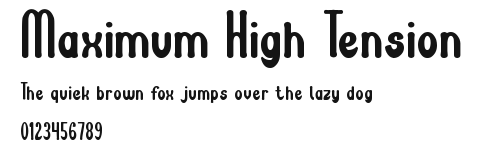
Maximum High Tension Preview
• Font Name: Maximum High Tension
• Full Font Name: Maximum High Tension
• Version: Version 1.00 June 9, 2014, initial release
About Maximum High Tension.ttf
Maximum High Tension.ttf is a modern, elegant sans-serif font designed for ultimate readability and visual harmony. Perfect for branding, headlines, web design, and print materials.